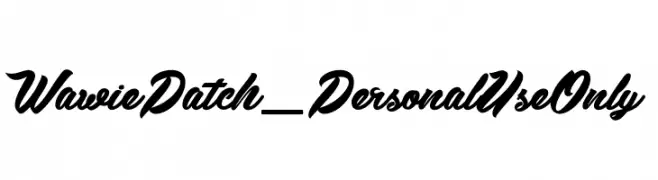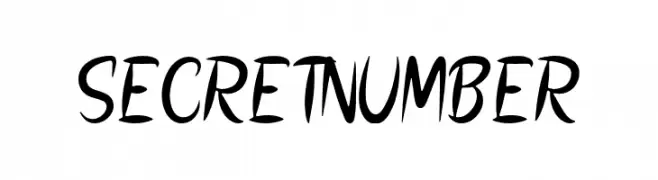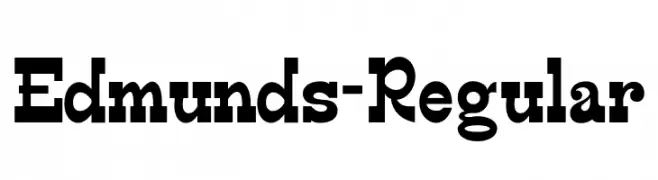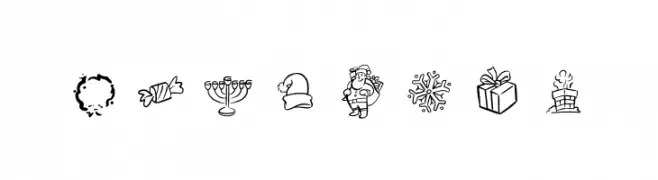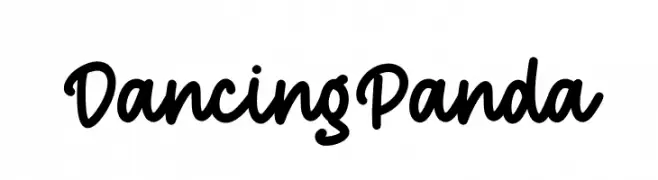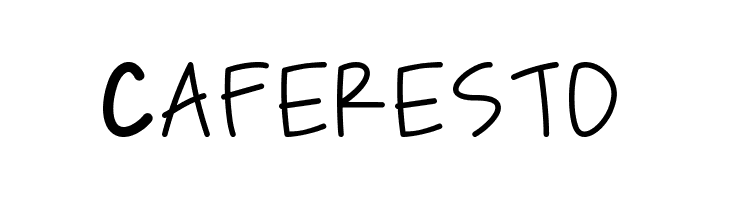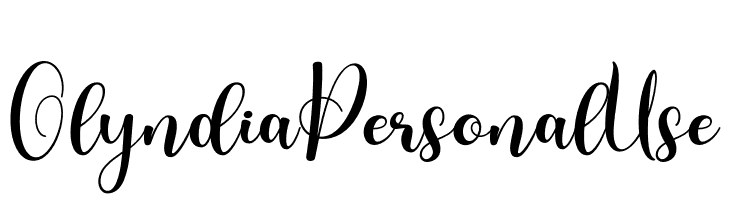
A bold, dynamic script font with interconnected characters and a strong presence.
A dynamic, brush-style font with expressive, fluid strokes.
A bold, modern slab serif font with strong, block-like serifs.
Hand-drawn holiday icon dingbat font.
A dynamic and flowing italic font with smooth curves and a modern style.
A bold, playful handwritten font with smooth strokes and lively character.
A bold, geometric font with Art Deco influences and high contrast.
A dynamic, fluid script font with an elegant, handwritten style.
A retro, pixelated font with a blocky, geometric style.
An elegant, flowing script font with interconnected letterforms.